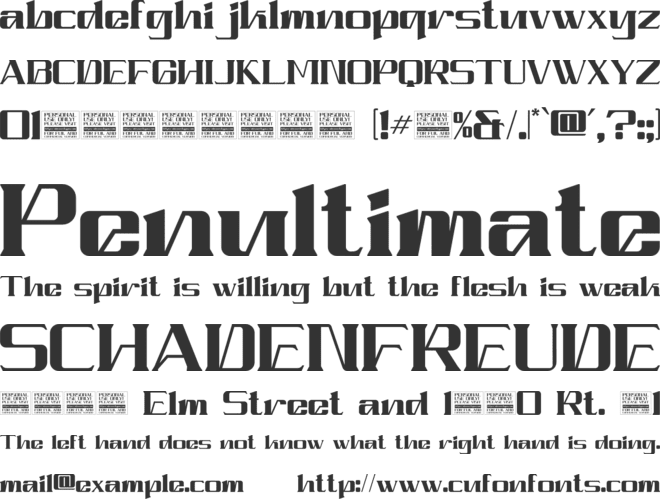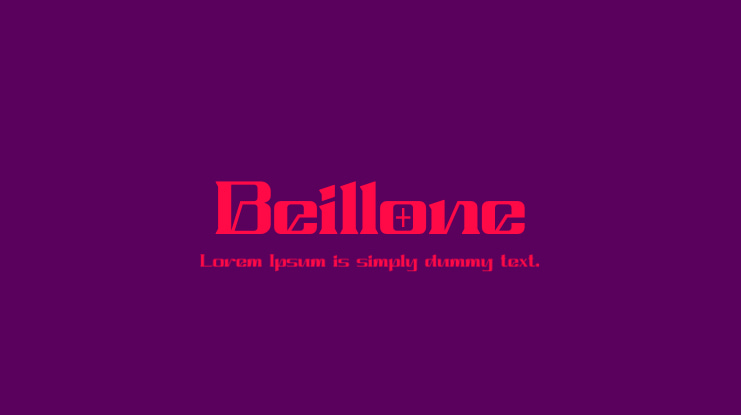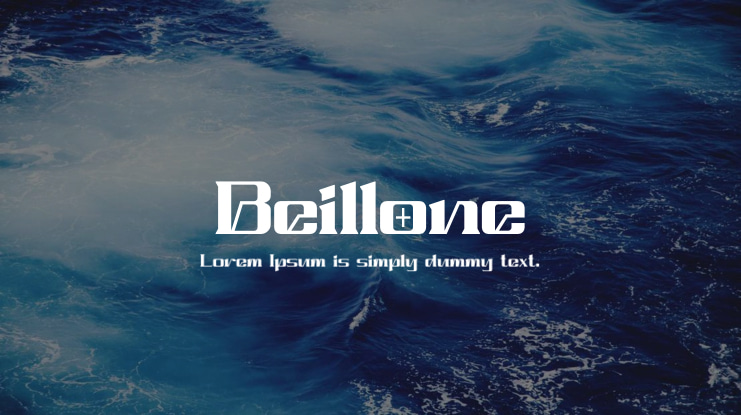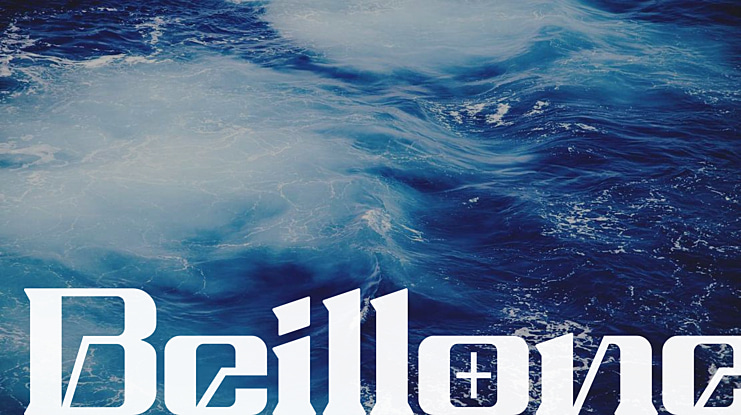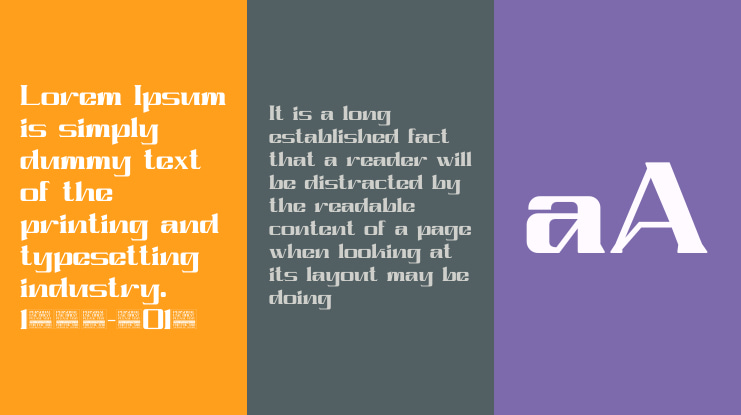
Beillone Font
Beillone is the display typeface with combine uppercase and lowercase looks and feel nice balanced. Provide with alternates and ligatures font in variant style make the design letter looks nice. Honestly it works perfectly for headlines, logos, posters, packaging, T-shirts and much more.